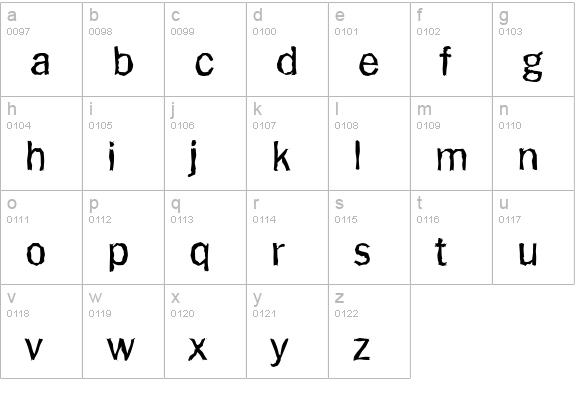
PlymouthRandom-Regular Font Details
PlymouthRandom-Regular is the standard, neutral variant in the PlymouthRandom typeface family \xE2\x80\x94 well suited to general body text, paragraphs, and standard typographic work.
PlymouthRandom-Regular font is a charming and versatile typeface that exudes a sense of whimsy and creativity. Its unique hand-drawn style adds a touch of playfulness to any design project, making it perfect for a wide range of applications, from branding to packaging to social media graphics. This font features a random and irregular lettering style that gives it a distinctive and dynamic appearance. Each character has its own quirks and flourishes, creating a visually interesting text that catches the eye and adds a fun element to your designs. Whether you're looking to add a touch of spontaneity to your project or simply want a font that stands out from the crowd, PlymouthRandom-Regular is the perfect choice. And the best part? It's completely free to download at FontsMarket.com, making it accessible to designers of all levels. Don't miss out on this fantastic font – download PlymouthRandom-Regular today and let your creativity shine!